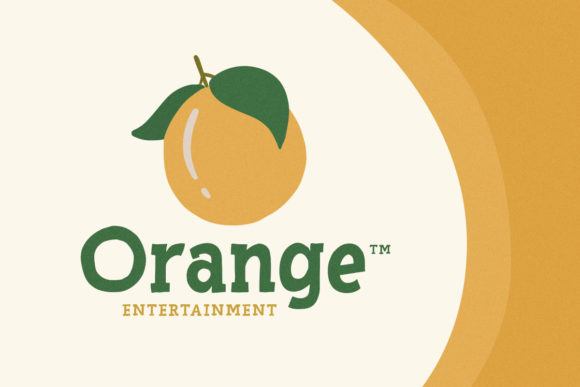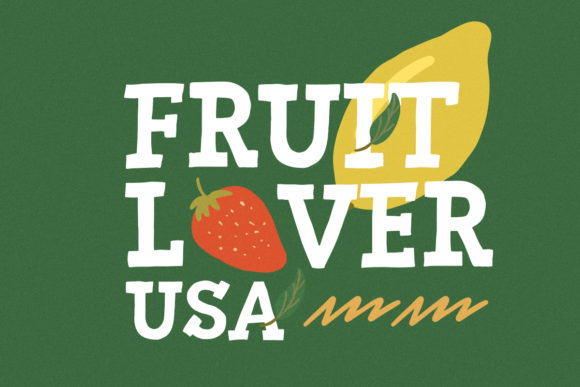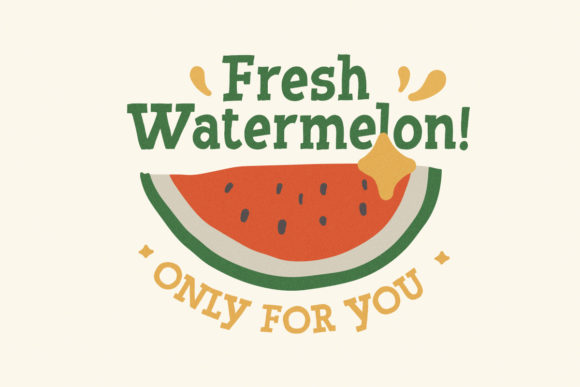
Introduction to Lemonade & Peach Font
As a designer, have you ever found yourself stuck in a creative rut, searching for that perfect font to bring your imagination to life? You know, that moment when you’re brainstorming ideas for a kids’ theme design or a storybook cover, and suddenly, the perfect font pops into your head. For many designers, this moment is elusive, but what if I told you there’s a font that could spark your creativity and make your design projects shine?
Enter the Lemonade & Peach Font, a fresh and fun display font that’s sure to be a game-changer in your design arsenal. With its high-quality design and transparent background, this font is perfect for designers looking for a reliable and versatile design resource. Whether you’re working on a free download or a paid project, the Lemonade & Peach Font is a valuable addition to any creative project.
Key Features of Lemonade & Peach Font
- Lemonade & Peach Font comes with a transparent background, ideal for digital designs and graphics.
- Includes a range of font styles, including bold, italic, and regular, to cater to various design needs.
- Unique characteristics include a playful, modern aesthetic and a wide range of language support, making it suitable for global creative projects.
Honest Review: Lemonade & Peach Font
As a designer, I’m always on the lookout for high-quality design resources that can elevate my creative projects. Recently, I stumbled upon the Lemonade & Peach Font, and I’m excited to share my honest review.
Here’s what works well: ✨ The font is incredibly versatile, with a perfect balance of modern and classic elements. It’s perfect for use in logos, branding materials, and even digital products. The transparent background feature allows for seamless integration with any design element.
- Perfect for logos, branding materials, and digital products
- Transparent background feature
Overall, I’d say the Lemonade & Peach Font is a solid design resource that’s perfect for designers who need a high-quality font for their creative projects. While it may have some limitations, its versatility and modern design make it a valuable addition to any design library.
For the best results, use the Lemonade & Peach Font with a transparent background to achieve a clean and modern look. Experiment with different font sizes and colors to find the perfect combination for your creative project.
Is the Lemonade & Peach Font suitable for high-resolution printing?
Yes, the Lemonade & Peach Font is designed to be high-quality and suitable for high-resolution printing. It features smooth lines and clear typography, making it perfect for business cards, brochures, or any other printed materials. The font’s high resolution ensures that it will look great even when printed at large sizes.